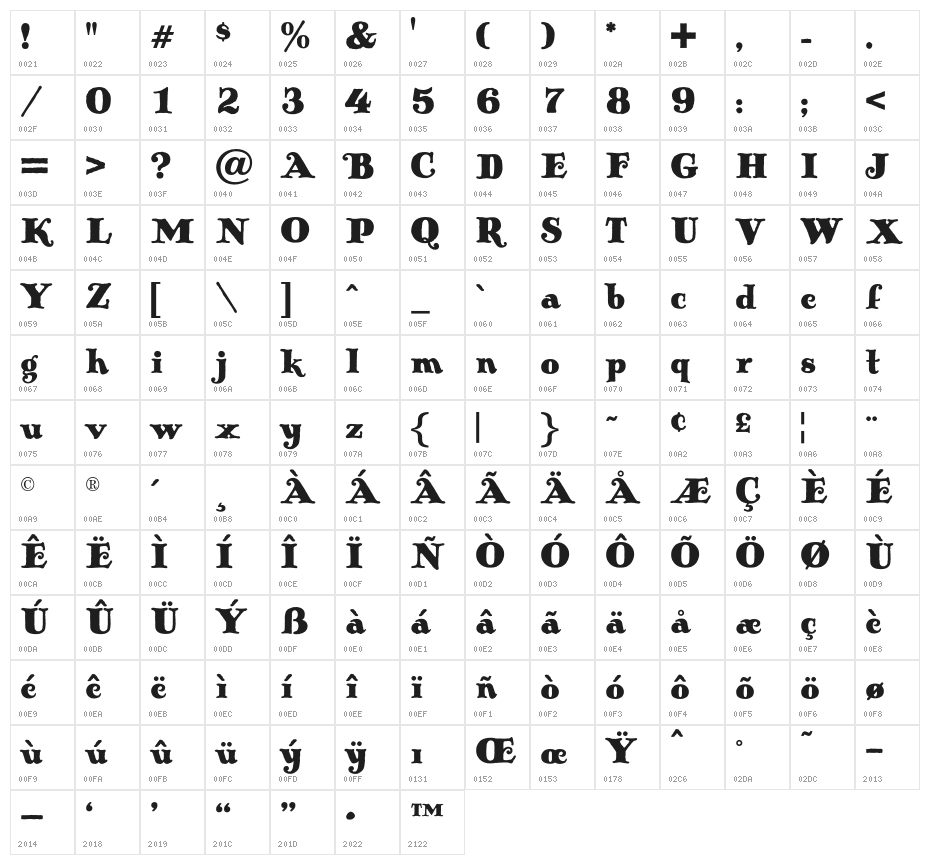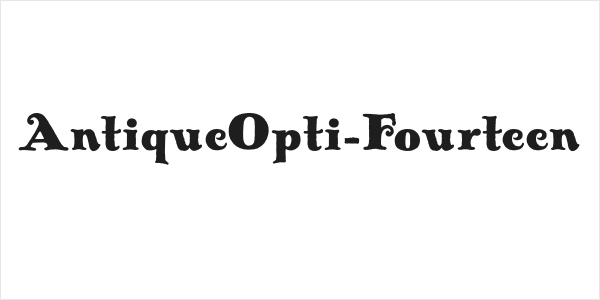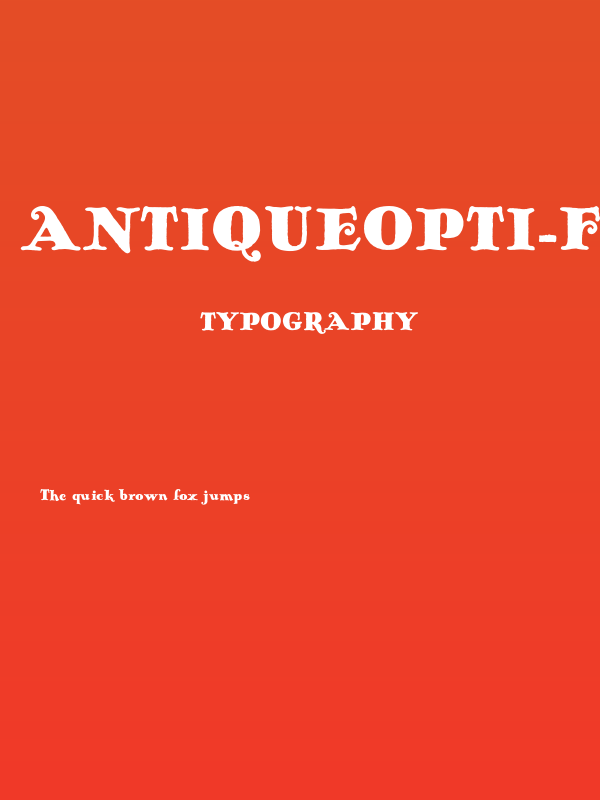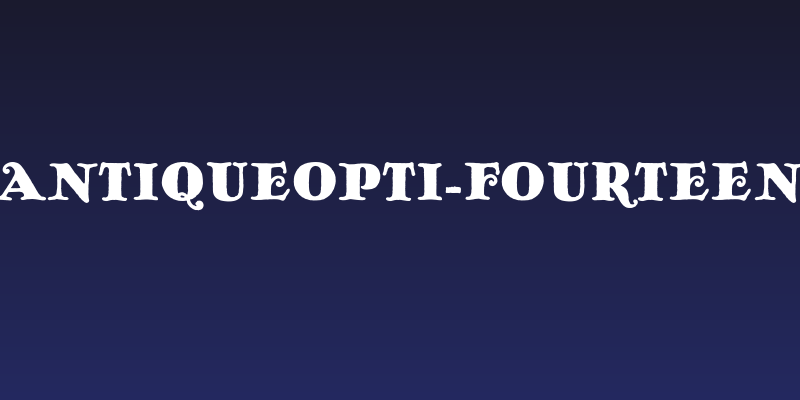
AntiqueOpti-Fourteen Font
AntiqueOpti-Fourteen Description
This font features a bold and dramatic style with thick, heavy strokes and pronounced serifs. The characters exhibit a vintage flair, reminiscent of classic woodcut or engraved typefaces. The uppercase letters are robust and commanding, while the lowercase letters maintain a consistent weight, offering a harmonious balance. The numerals are equally bold, ensuring visibility and impact. Special characters are designed with the same attention to detail, making them stand out. This font's overall appearance is both decorative and functional, suitable for a variety of design needs.
Overall StyleVintage
Proposed ProjectsIdeal for vintage-themed posters, book covers, branding, and signage.